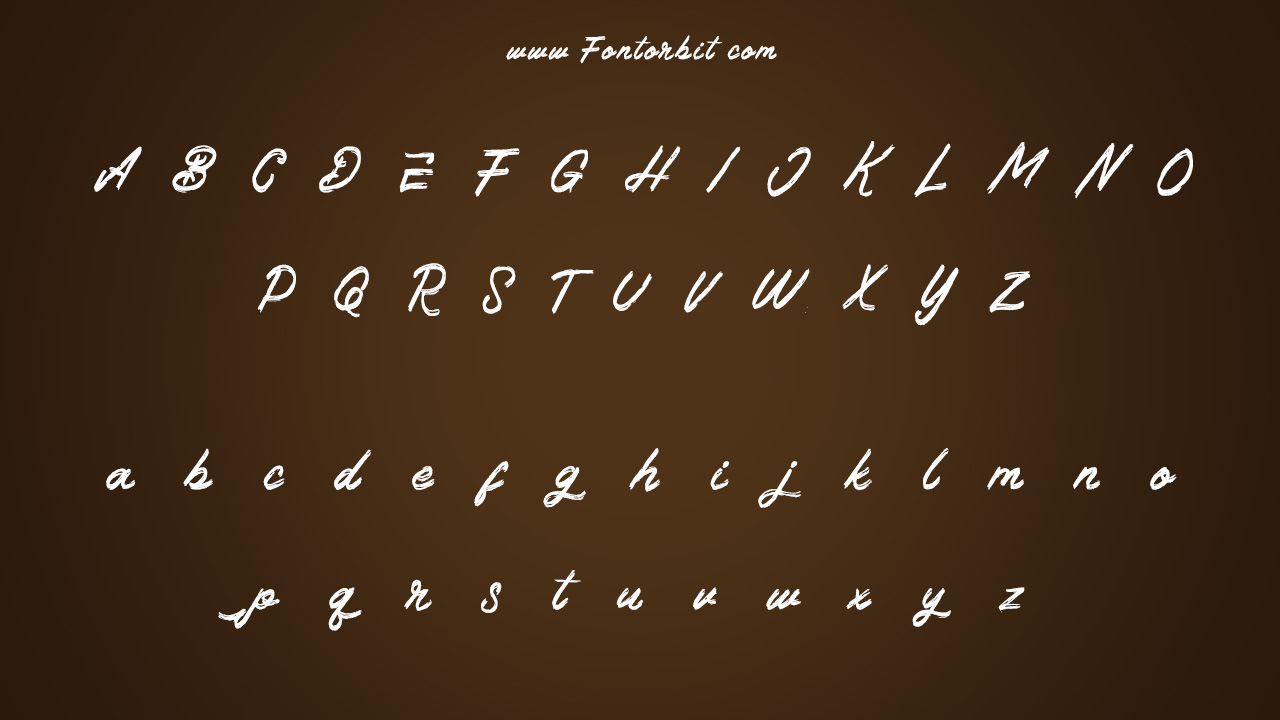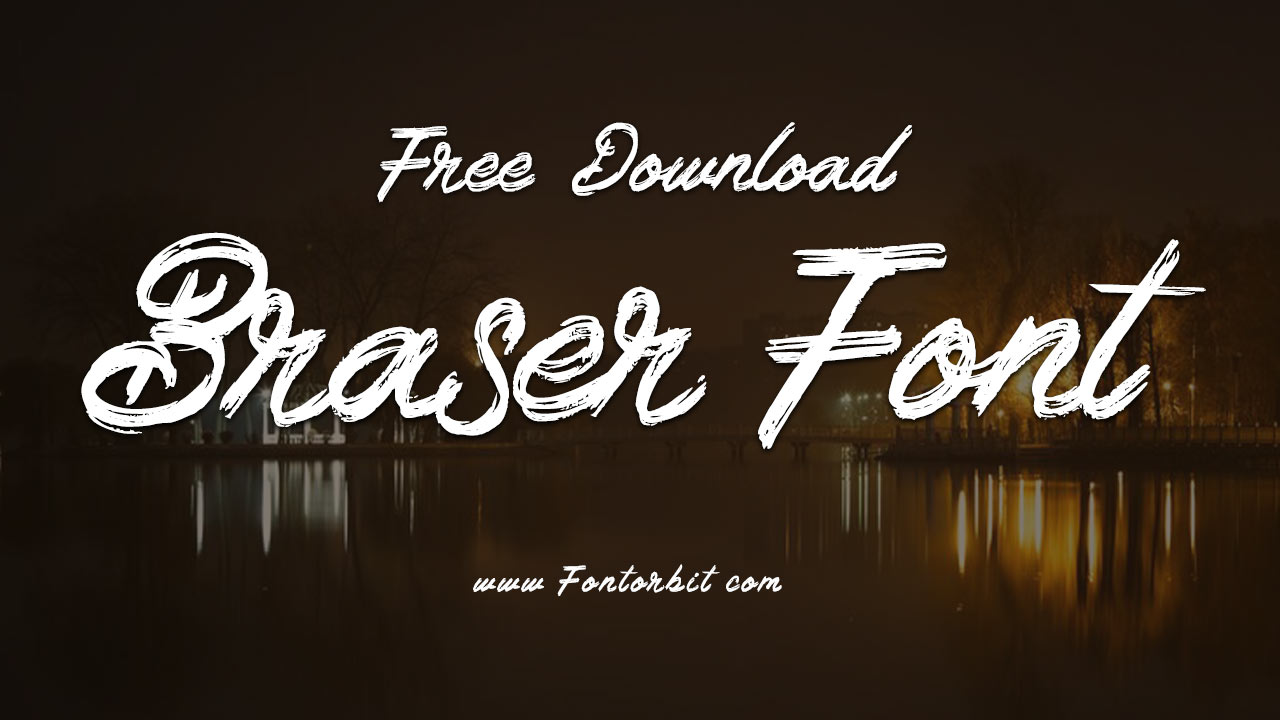
The Braser Font is a grunge brush typeface designed by Vunira Design. Released on, this font belongs to the Braser Family. It’s known for its rough, hand-drawn appearance that adds an edgy, artistic flair to any design project.
‘Braser’ Family Includes The Braser font family features a range of styles that cater to various design needs. Here’s a brief look at the available options:
Notable Uses Of Braser
The Braser font is ideal for use in:
- Poster designs and promotional material
- Artistic projects and album covers
- Urban-themed graphics and apparel
The Braser font is perfect for projects that need a gritty, raw touch. It’s particularly effective in scenarios where you want to convey a sense of boldness or artistic expression. Use it in settings like:
- Music and concert posters
- Graffiti-inspired graphics
- Creative branding and advertising
The Braser font stands out with its distinctive, grunge-inspired design, making it a great choice for creative and bold projects. Whether you’re working on posters, album art, or any project that benefits from a rough aesthetic, Braser offers a unique visual style that can enhance your design.
7.What Types Of Projects Are Best Suited For Braser?
It’s ideal for artistic projects, posters, and creative branding.
8.Are There Any Similar Fonts To Braser?
9.Can I Use Braser For A Logo Design?
Yes, Braser is a great choice for logo design, especially if you want a grunge effect.